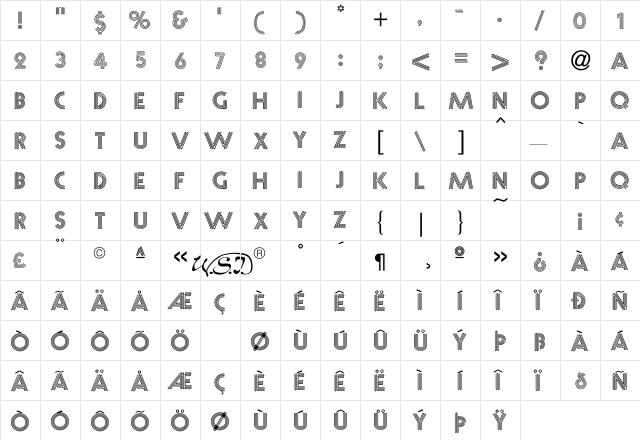
Neon Caps Regular
Design Context for Neon Caps Typeface
Neon Caps channels digital-age aesthetics through its sharp, structured letterforms — ideal for brands that want to signal innovation.
Pro Tip: Use Neon Caps in combination with a neutral sans for body text. Let it define the brand voice in headlines while keeping reading comfortable elsewhere.